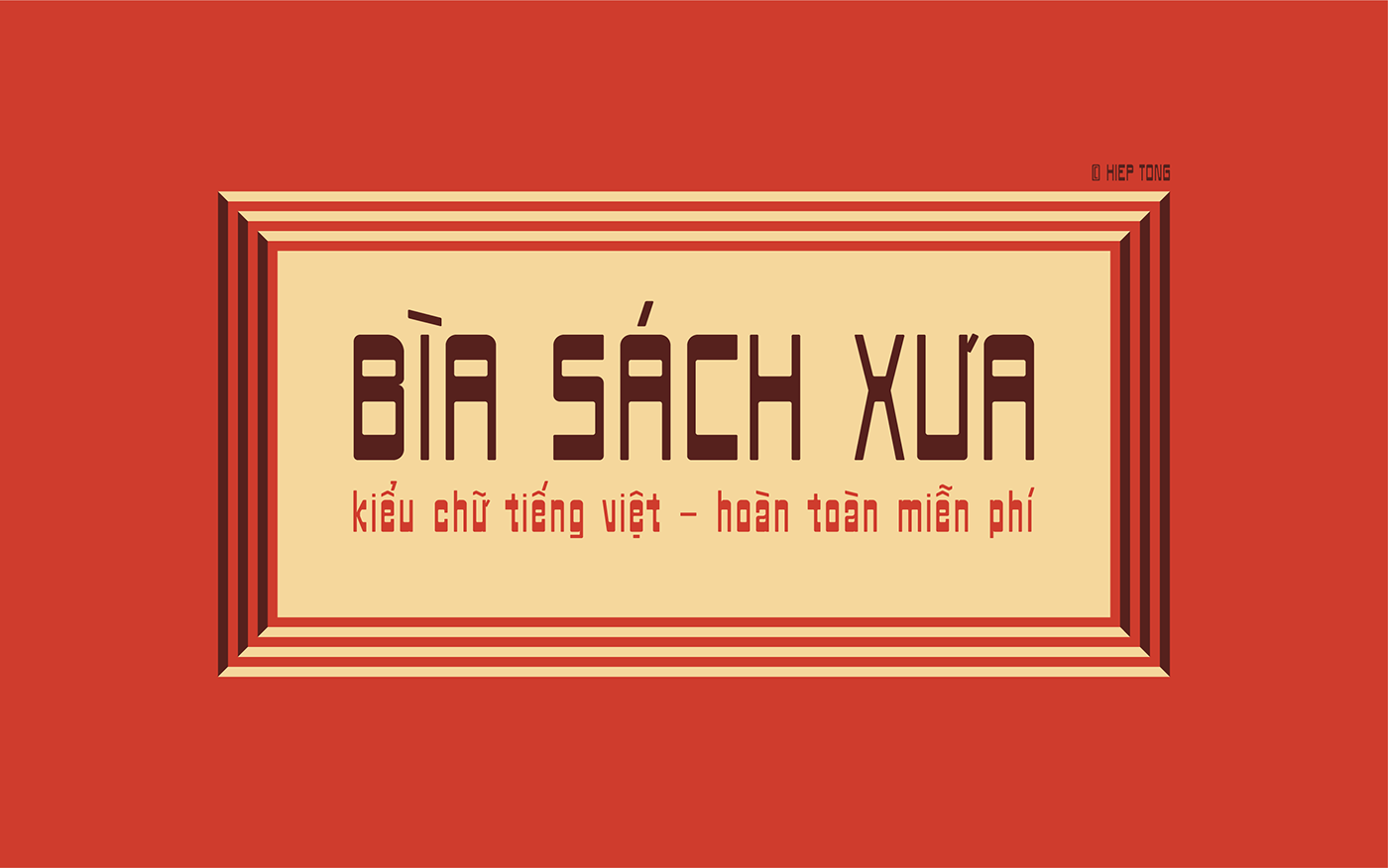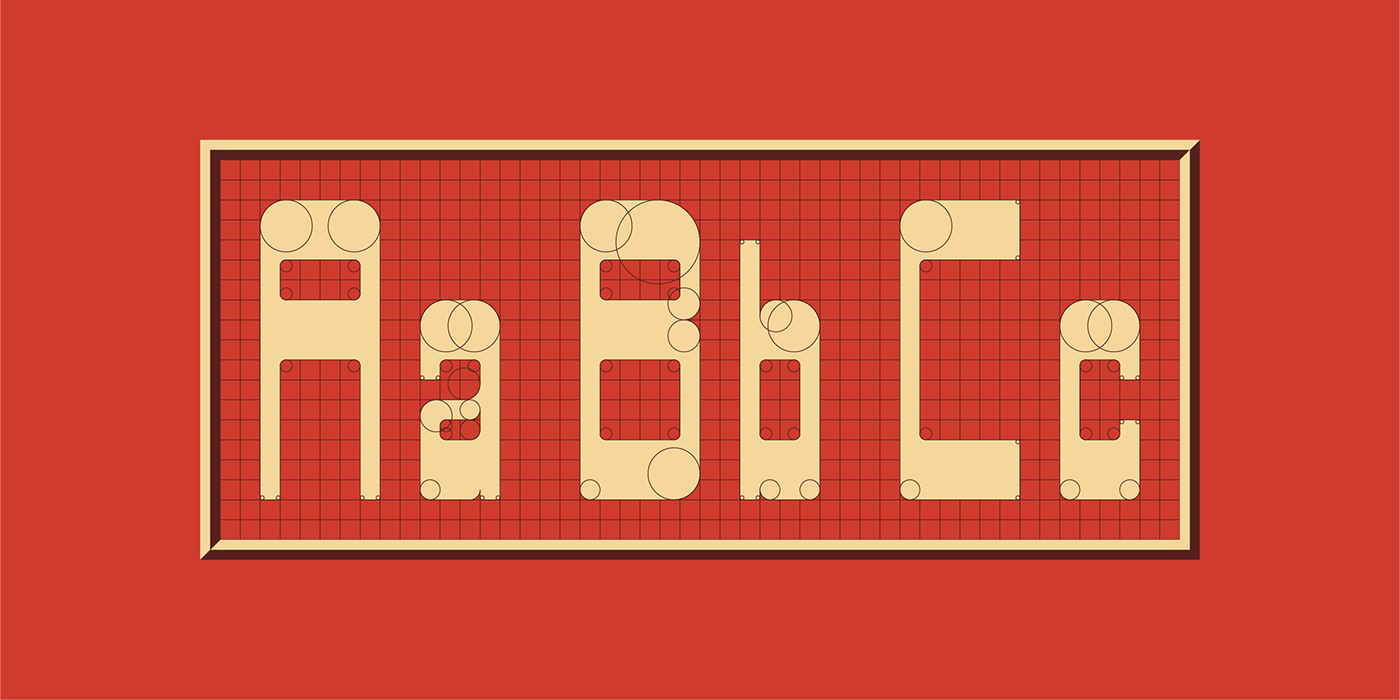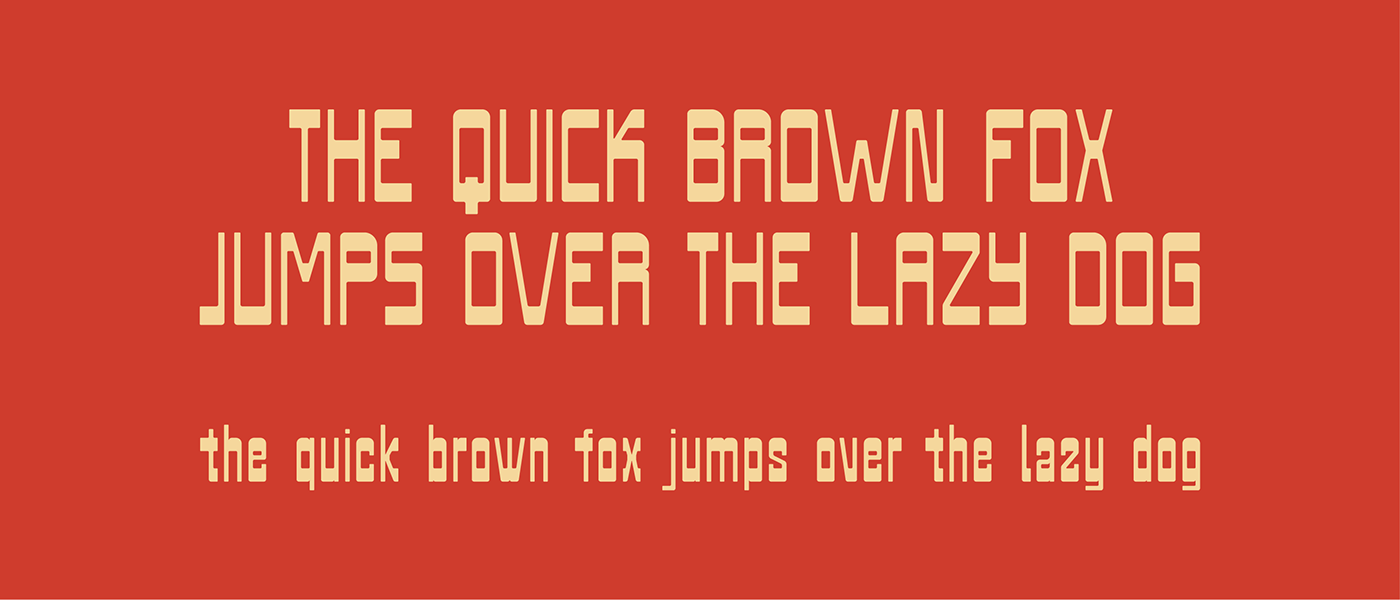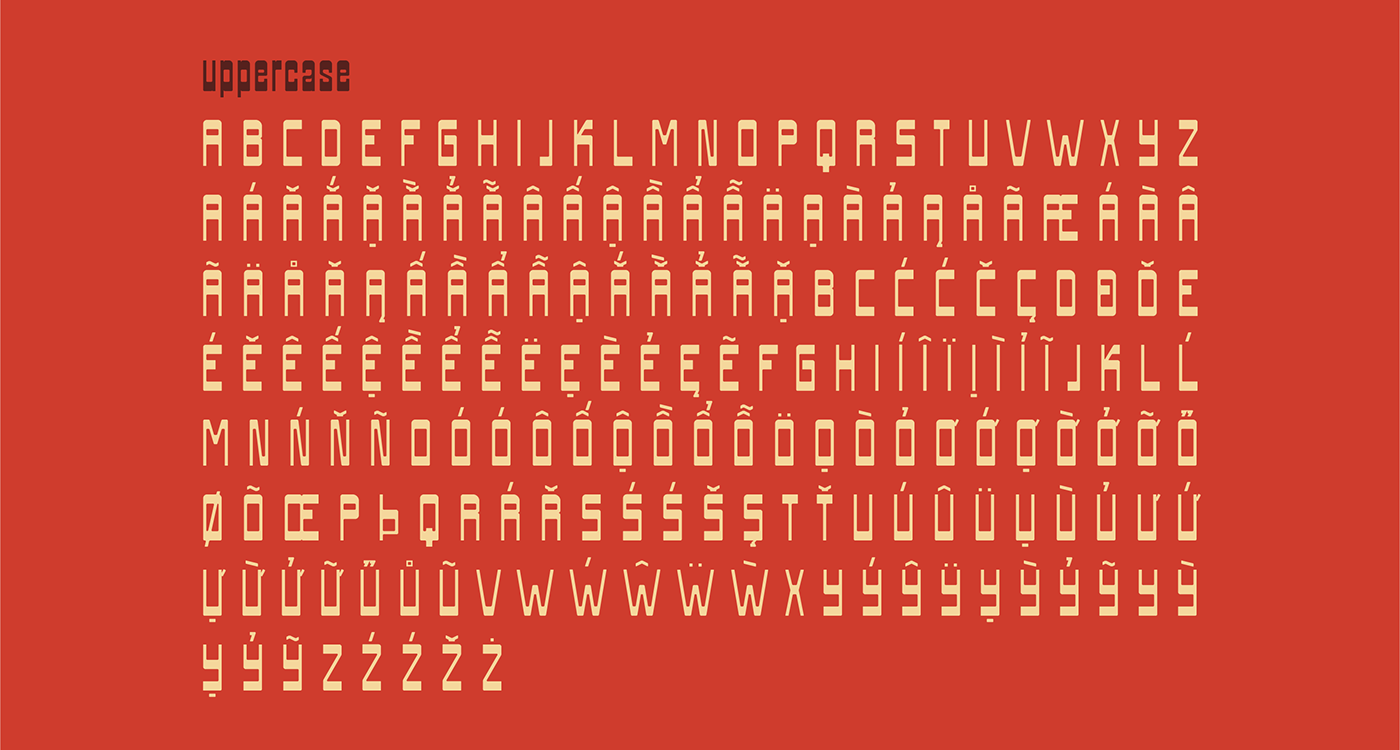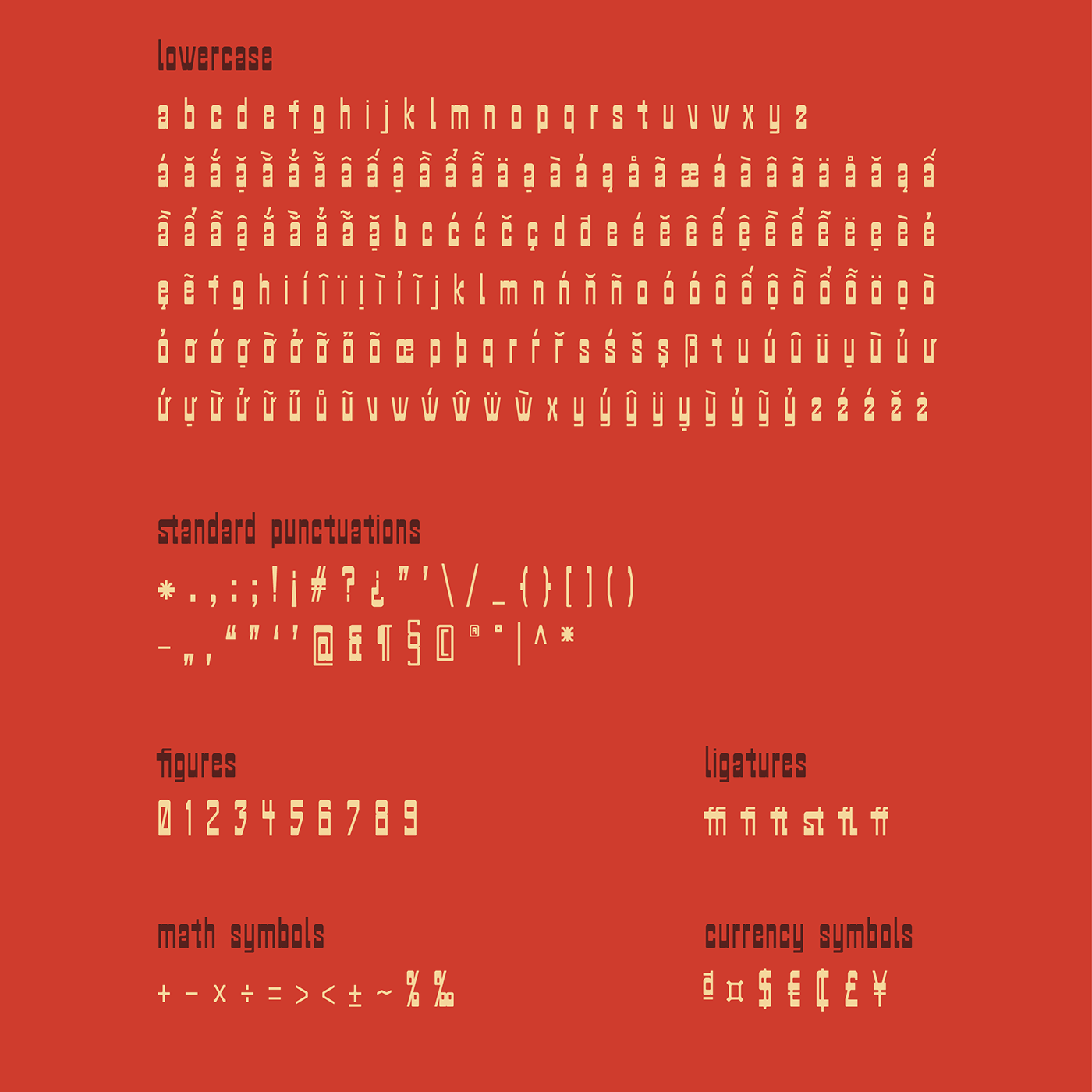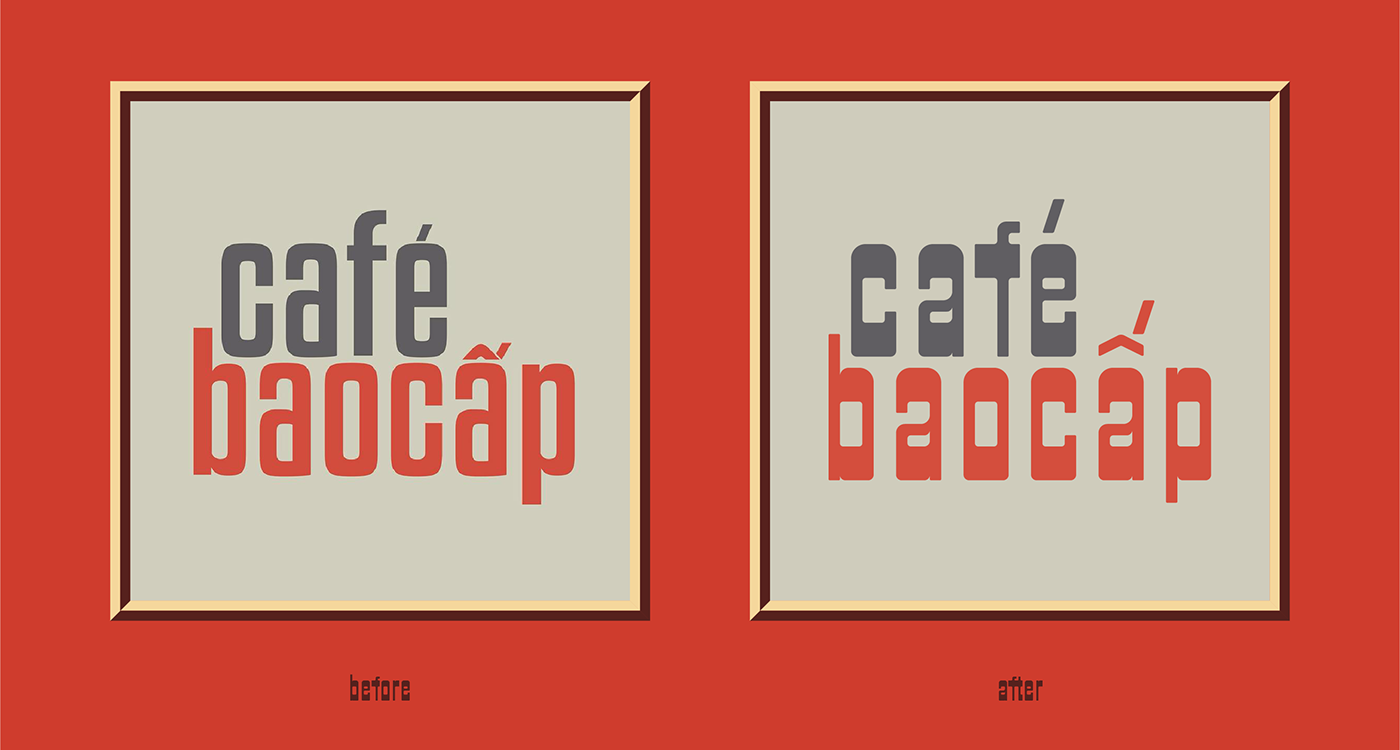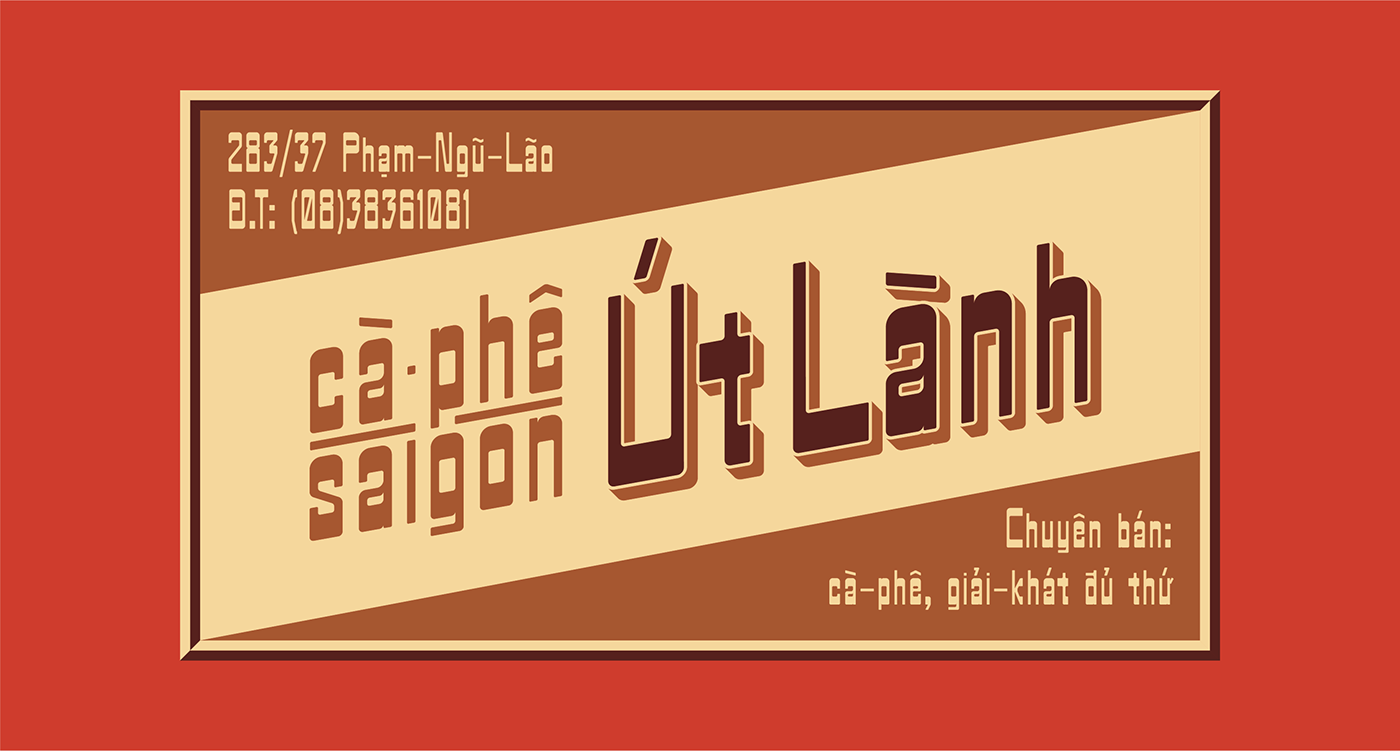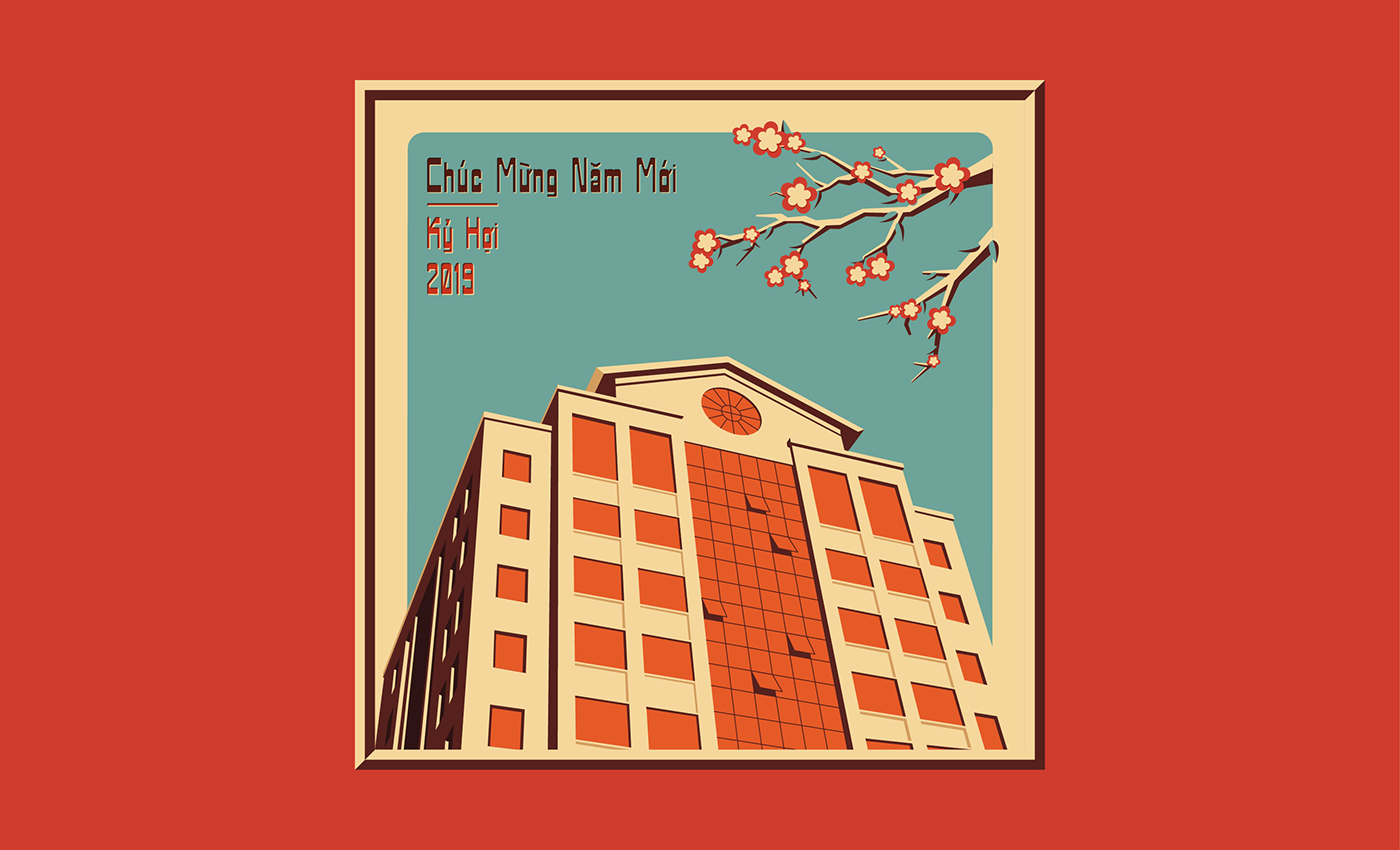
Biasachxua (“Bìa sách xưa” in Vietnamese) means “old book cover”. It was created by Hiep Tong, a designer from Vietnam who tries to express the old values in his work. Excellent choice for any type of print project, whether that’s a book cover, logo, poster or anything editorially based. Biasachxua is free for personal use!